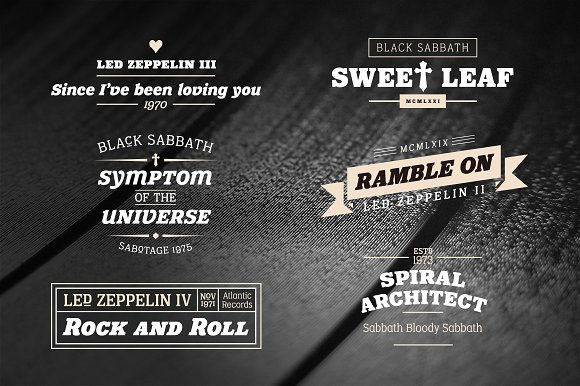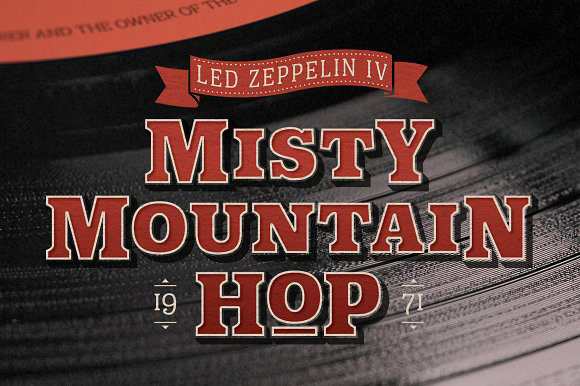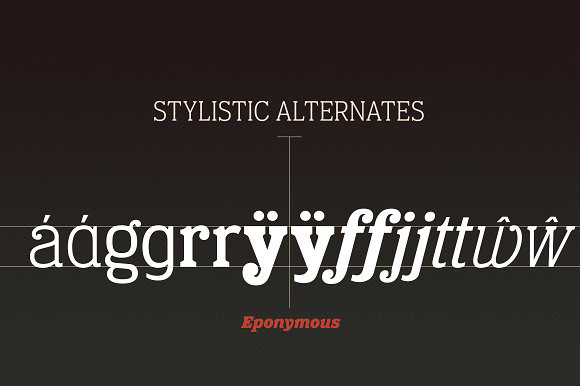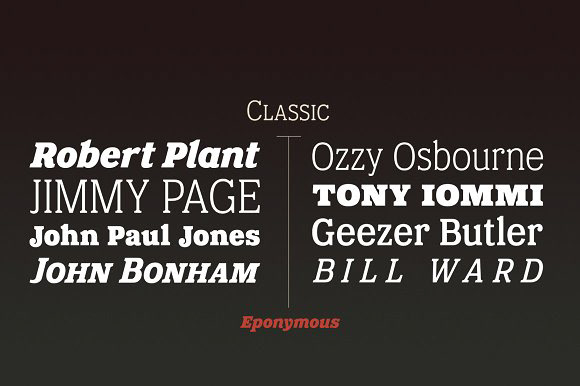
Eponymous is an Egyptian-style typeface with chunky, scalloped serifs. It is available in five weights in both roman and italic.
Make use of the Open Type features that are part of Eponymous. For a start, you can implement some stylistic alternates, so, if the main characters don’t quite suit your concept, try activating Stylistic Set 1. There’s also a full set of small caps included. You can mix and match these characters with regular lowercase to create some interesting unicase typography. Of course, all characters have complementing diacritics, enabling multi-language support.
Key features:
5 weights in roman and italic:
Light | Regular | Medium | Bold | Black
Full set of small caps with diacritics and figures
30+ alternate characters
Full European character set
600 glyphs per font